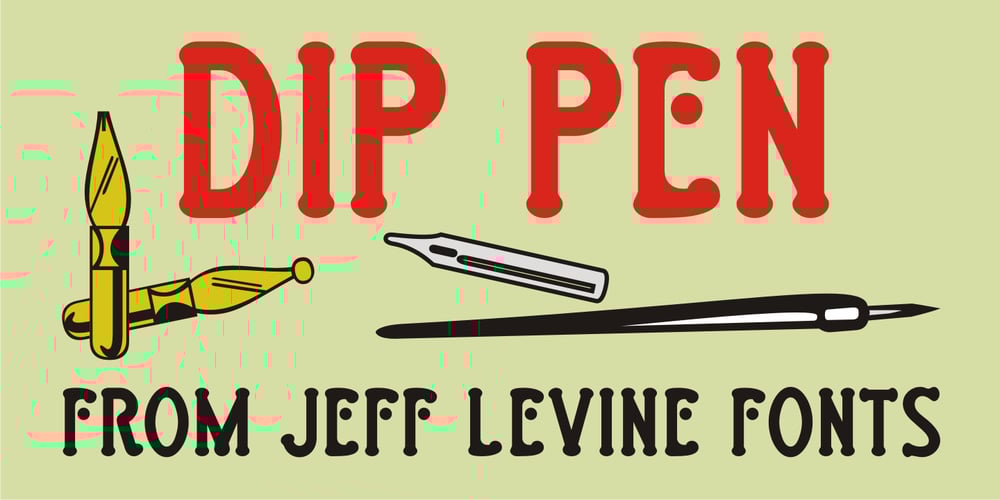
Dip Pen JNL
Dip Pen JNL font
Dip Pen JNL Font Family was designed by Jeff Levine and published by Jeff Levine. Dip Pen JNL contains 1 styles and family package options. “Answer Songs” have been around for [probably] just as long as there have been songs. 1917’s “If I Catch the Guy Who Wrote Poor Butterfly” was the answer to the 1916 hit “Poor Butterfly” [by Raymond Hubbell and John Golden], which in turn was inspired by the Puccini opera “Madame Butterfly”. “Poor Butterfly” was so popular that this “answer” tune had as part of its lyrics “That melody haunts me in my sleep; it seems to creep.” Nonetheless, the sheet music for William Jerome and Arthur Green’s comic lament had the title hand lettered with an oval nib lettering pen and is now availably as a digital type face called Dip Pen JNL.